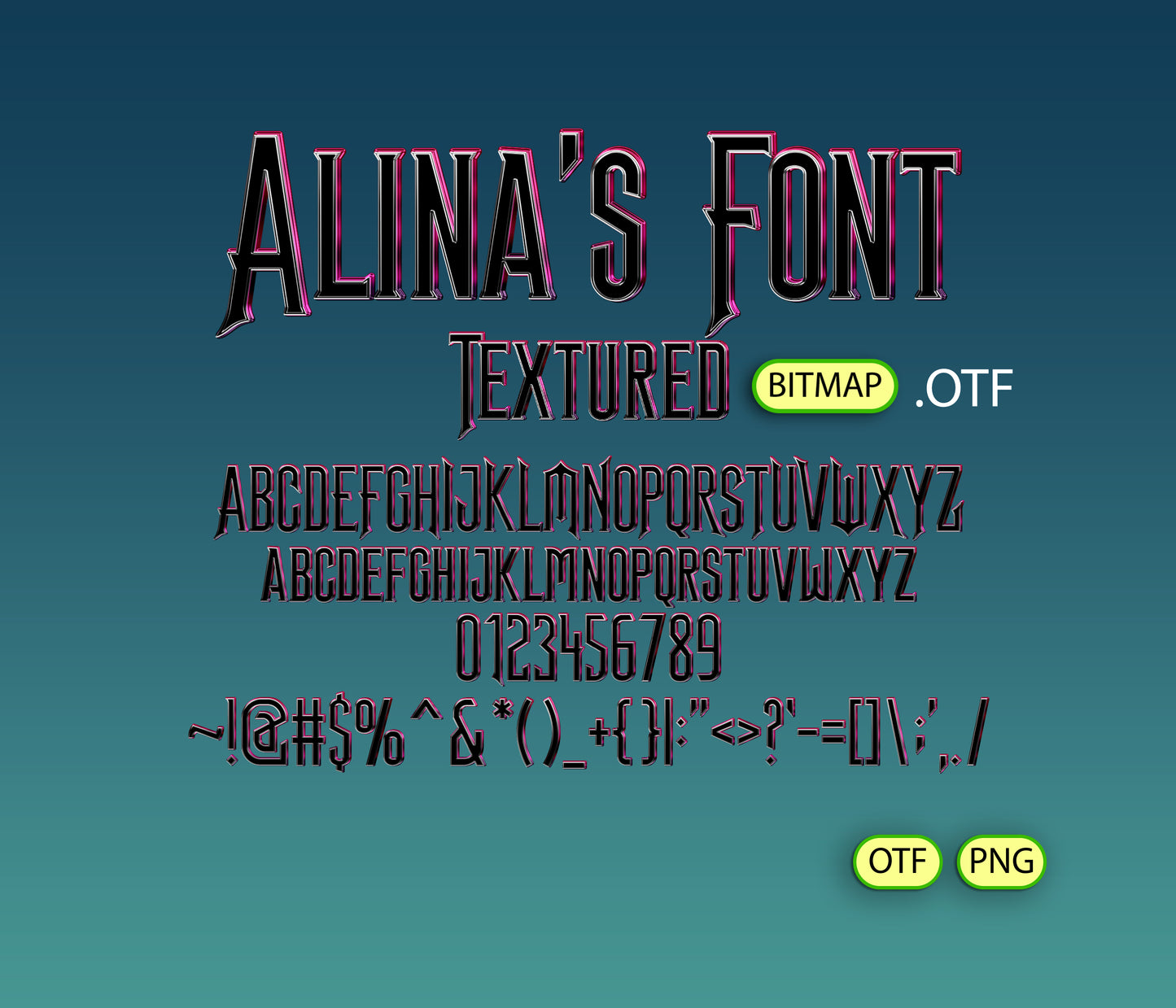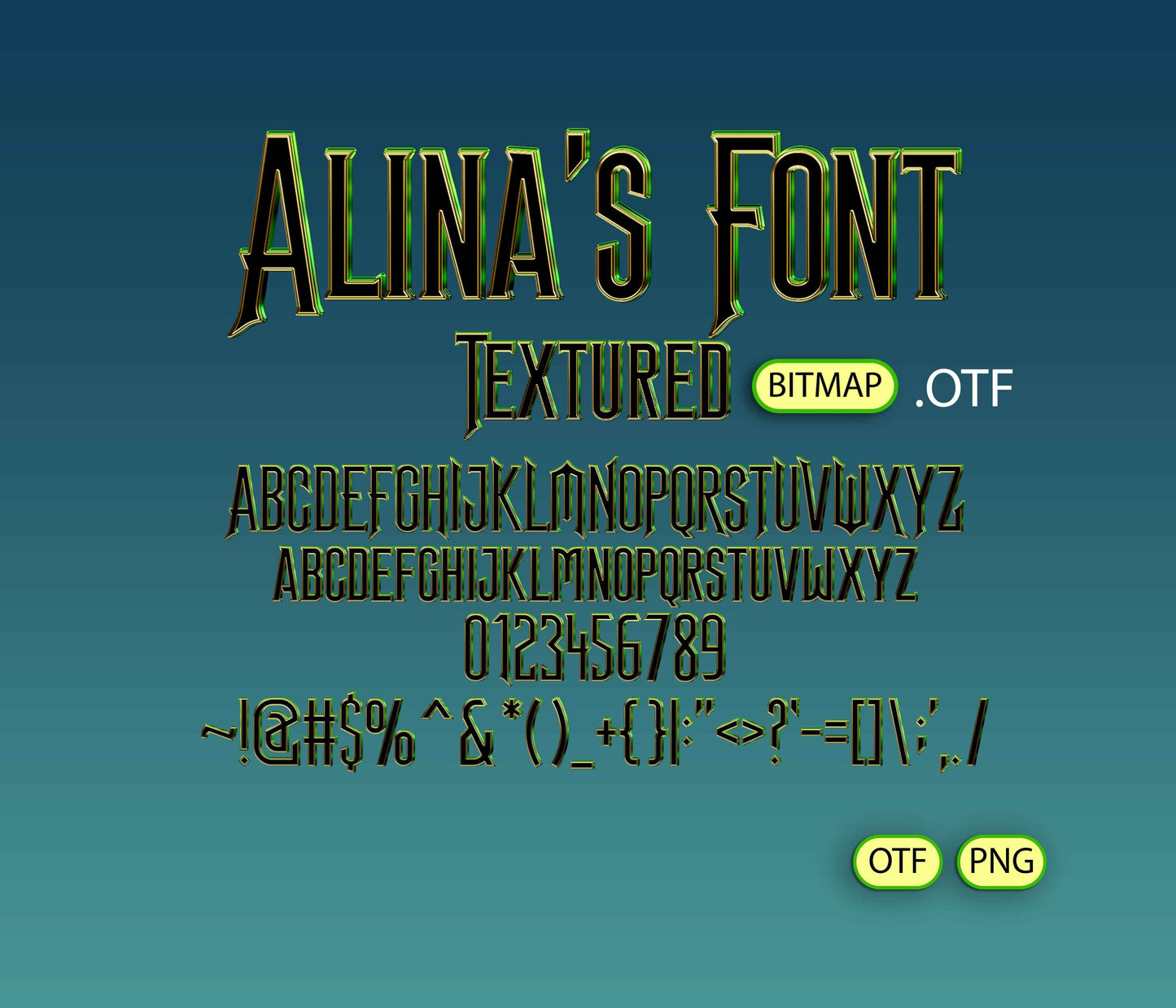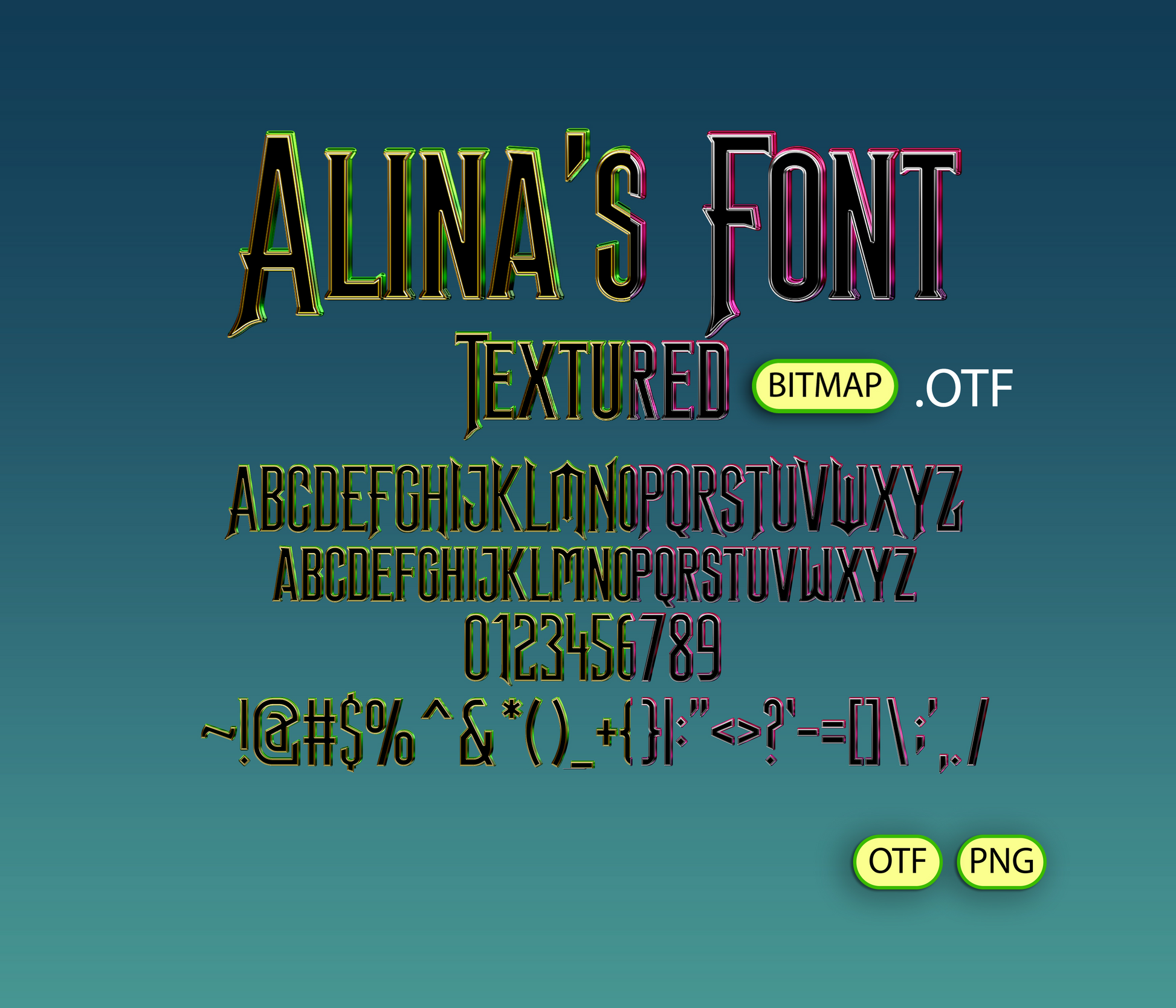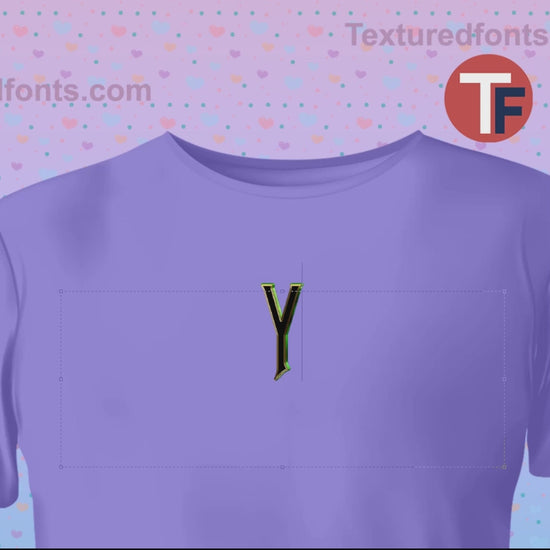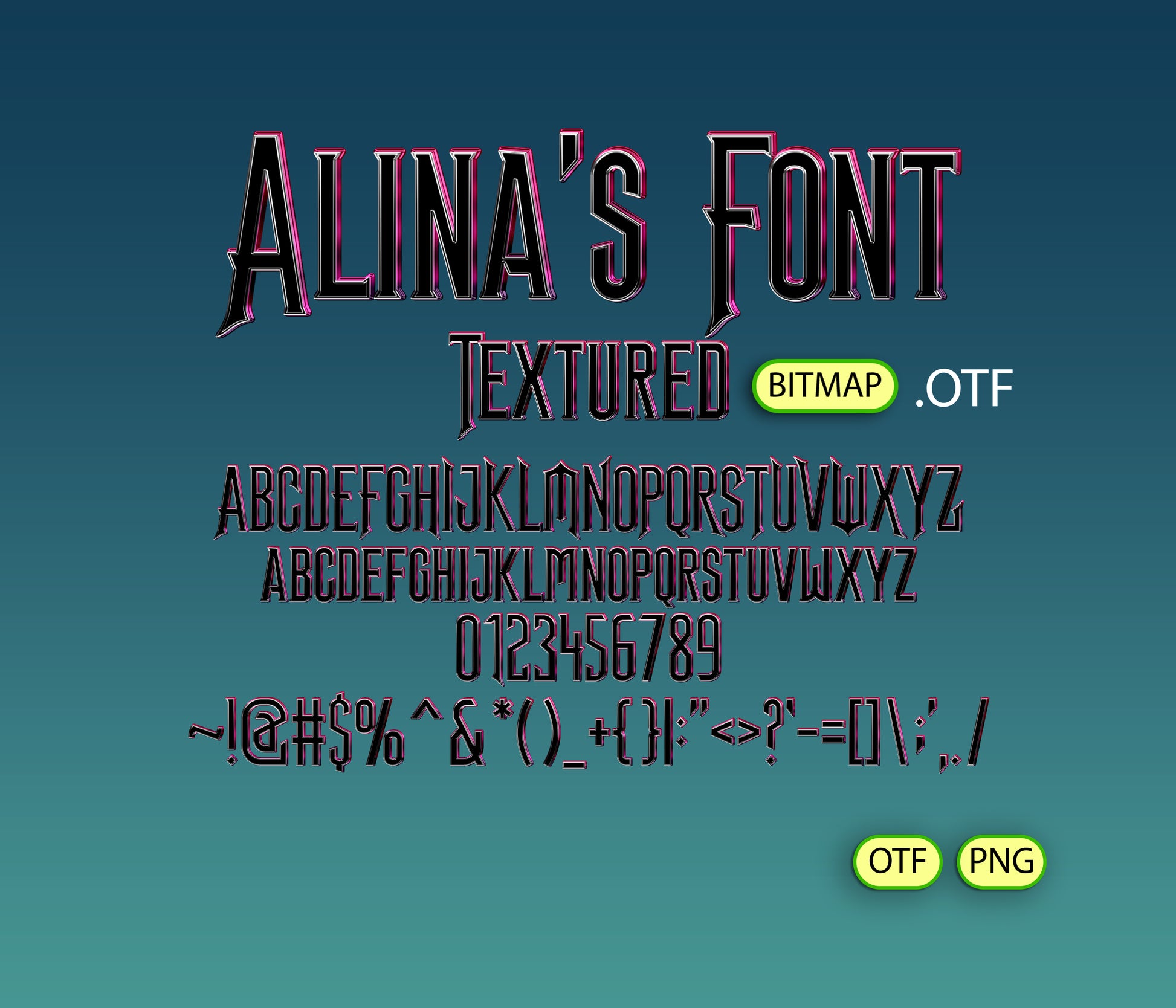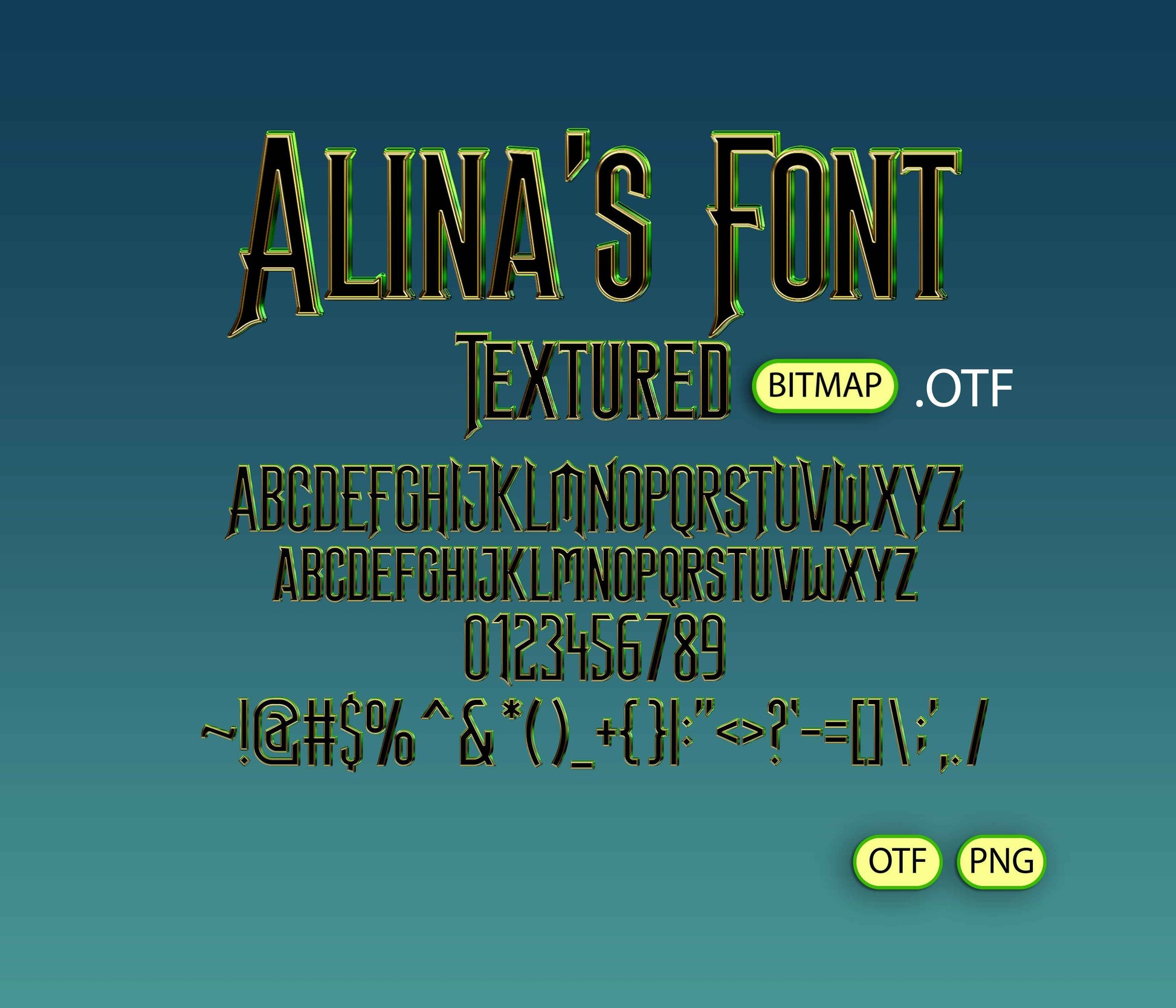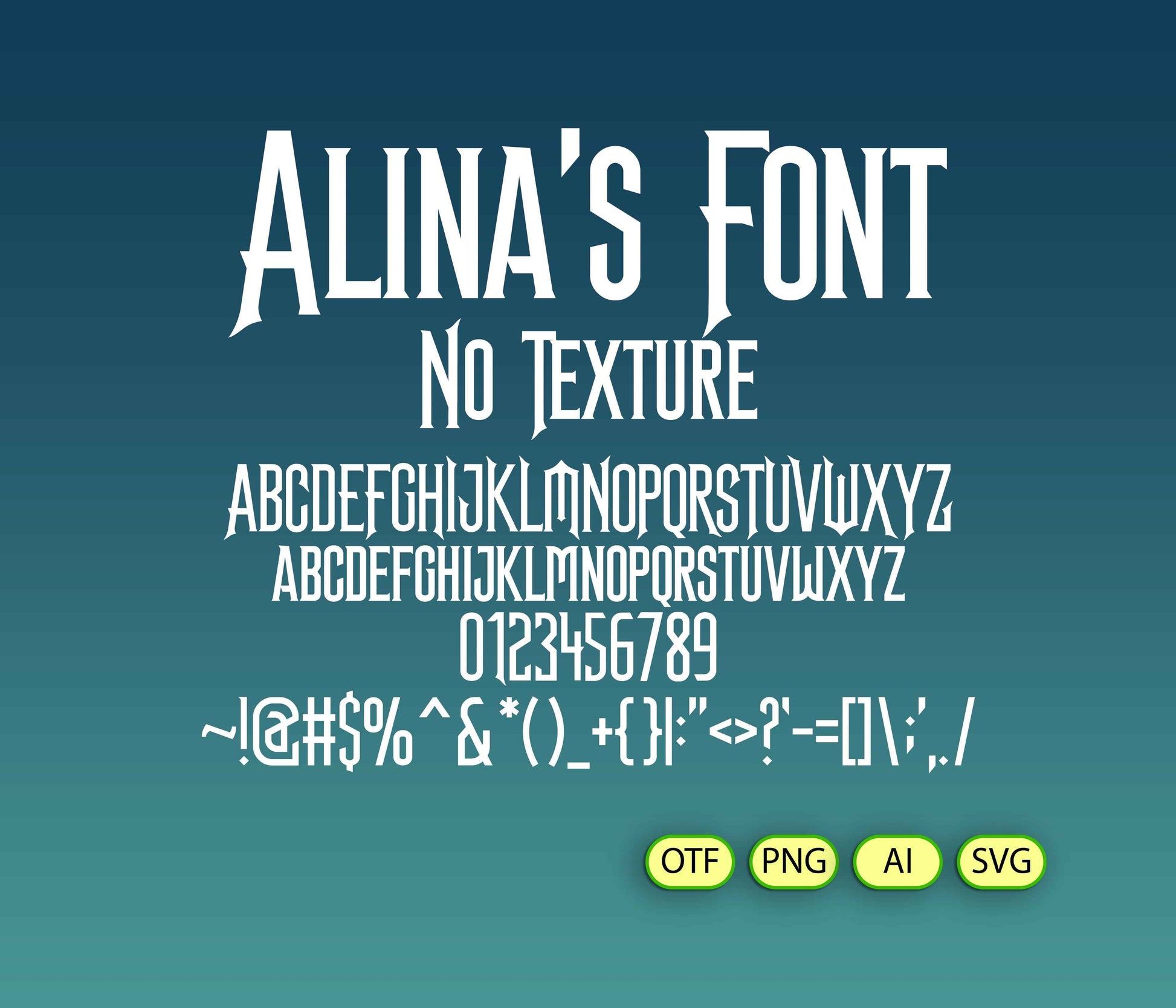
Magical Realms Font Textured
Step Into the Enchanting World with the Magical Realms Font Wicked Font
Embrace the magic and mystery of a beloved tale with our Magical Realms-inspired font. Designed to capture the essence of rich narratives and iconic characters, this font brings the spellbinding allure of magical lands right to your projects. Whether you’re creating theatrical posters, designing fan merchandise, or crafting personalized gifts, this font ensures that every word you type resonates with enchantment and intrigue.
Reflecting the thematic elements of fantastical stories, this font features elegant curves and sharp, whimsical flourishes that mimic the dynamic contrast between light and dark. The design is both captivating and expressive, ideal for conveying emotional depth and complexity. The complete character set includes uppercase and lowercase letters, numbers, and special symbols, making it fully equipped for a wide range of design purposes, from digital content to printed media.
Our Magical Realms font invites you to explore deeper narratives and rich visuals with every letter you type. Whether you’re engaging in artistic endeavors, commercial projects, or personal creations, this font allows you to infuse a touch of magic and drama into your work, captivating audiences and fans alike. Let your designs defy gravity and elevate your creative expression with the enchanting style of the Magical Realms font.